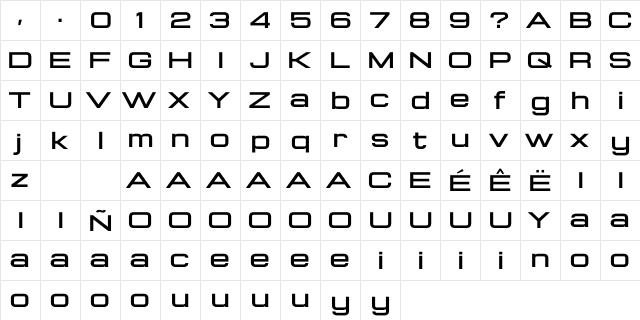
Konexy Personal Use Regular
| Foundry | Variatype Studio |
| Designer | Mukhlis Muhammad |
Design Context for Konexy Personal Use Typeface
Konexy Personal Use takes a measured approach to typography — its balanced proportions and neutral character make it a reliable workhorse for both digital and print work.